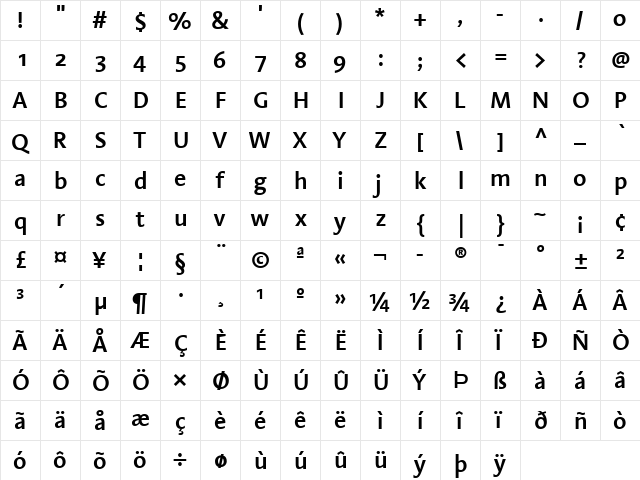
LinotypeAroma Light Semibold
Design Context for LinotypeAroma Light Typeface
LinotypeAroma Light offers clean, dependable letterforms without strong stylistic allegiance, making it a practical choice for designers who need flexibility. The heavy weight commands attention and anchors typographic hierarchies.